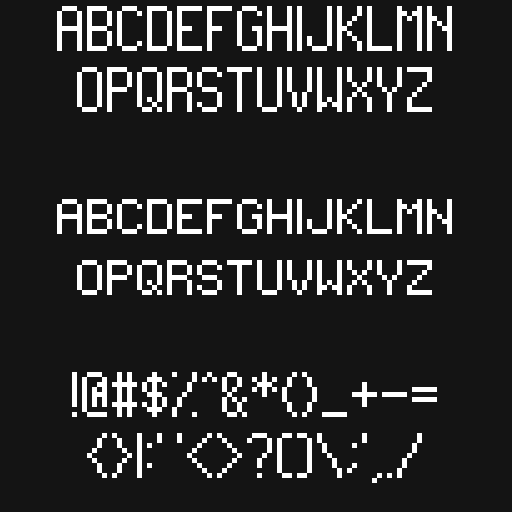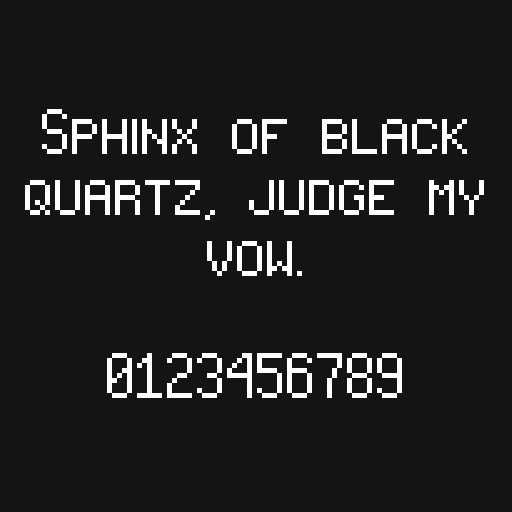
Capital Case - 9x5 Pixel Font
Capital Case
An Upper Case only style pixel font
9x5 upper and 7x5 lower
clean and classic!
a suggestion: some characters are missing for some of the languages: œ, æ, ß, ø